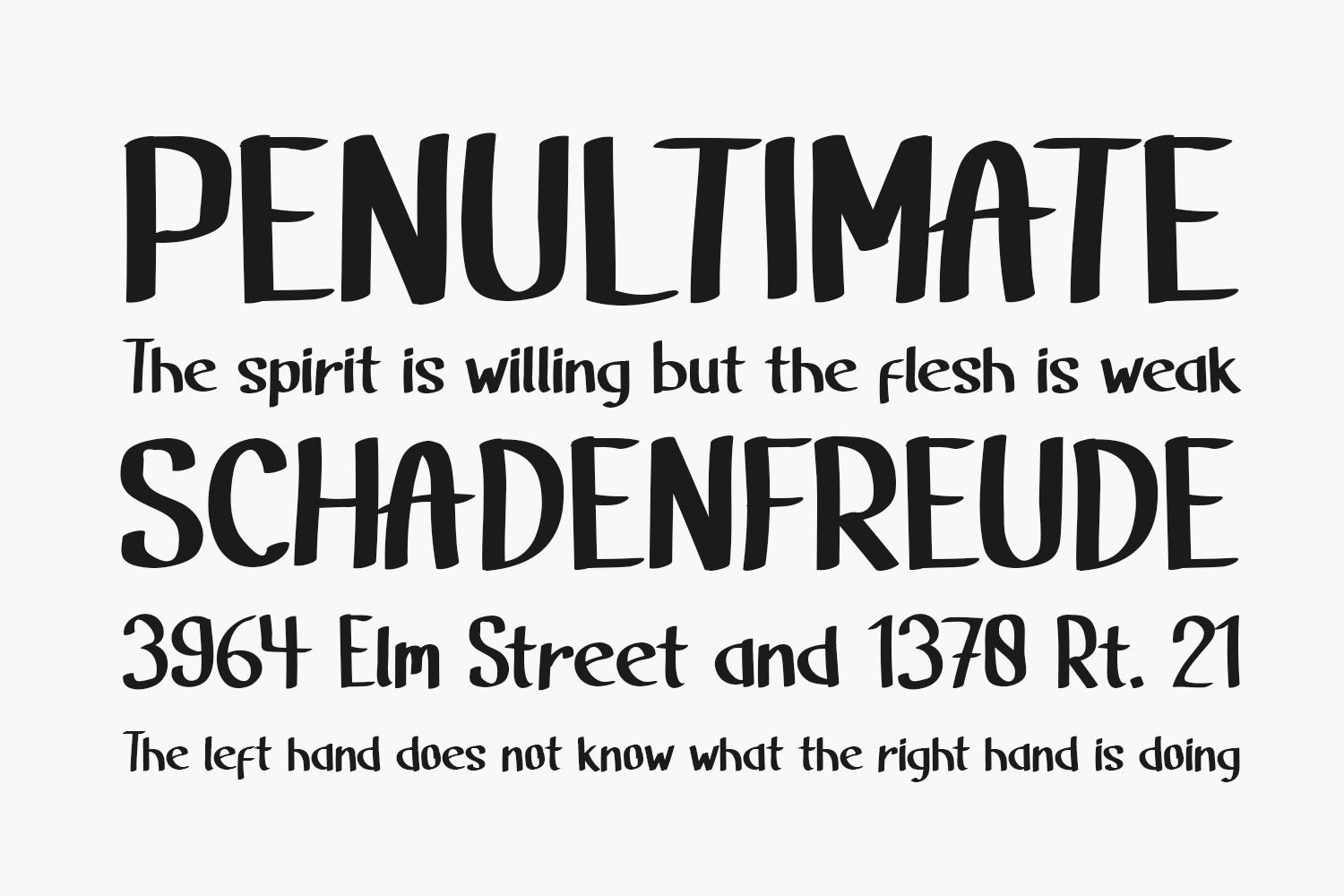
Milkyway Free Font is a font that evokes feelings of fun and playfulness. Its bouncy and quirky display style gives it a unique and playful feel, perfect for creating designs that exude a sense of excitement and joy. The font’s rounded letters and playful curves give it a childlike and carefree feel, making it ideal for creating designs that appeal to the sense of wonder and imagination. The free version can be easily integrated into any design software. Milkyway font is perfect for creating designs that aim to evoke feelings of fun, excitement and happiness. It can be used for creating posters, headings, and any project that wants to catch the attention of the audience and make them smile. It has the ability to bring a sense of joy and lightheartedness to any project, making it the perfect choice for anything that needs to stand out and be remembered.